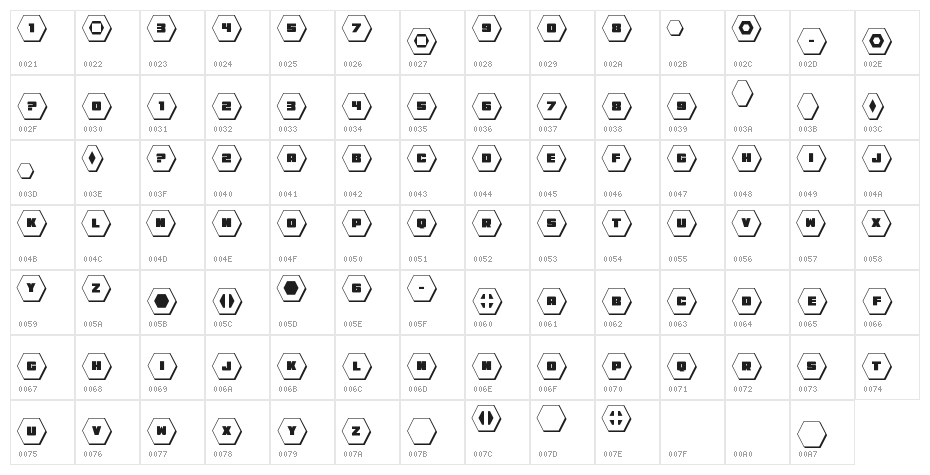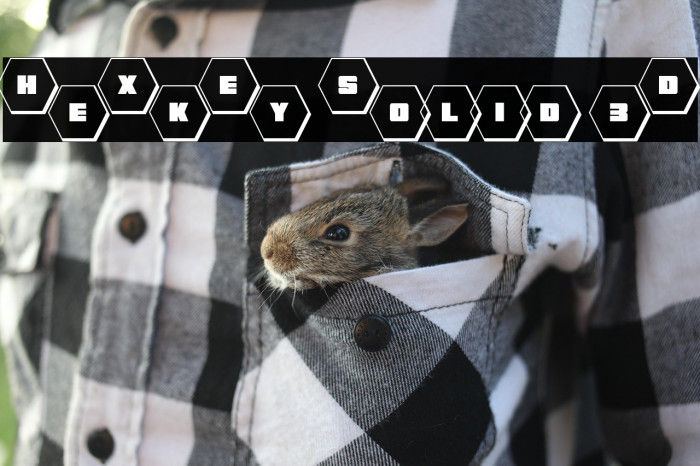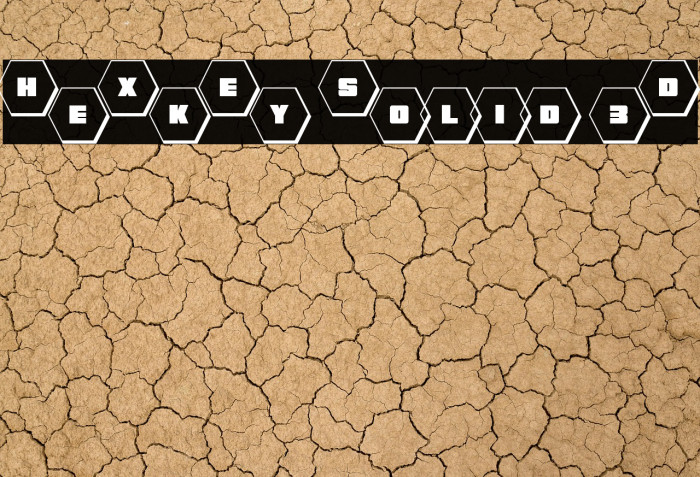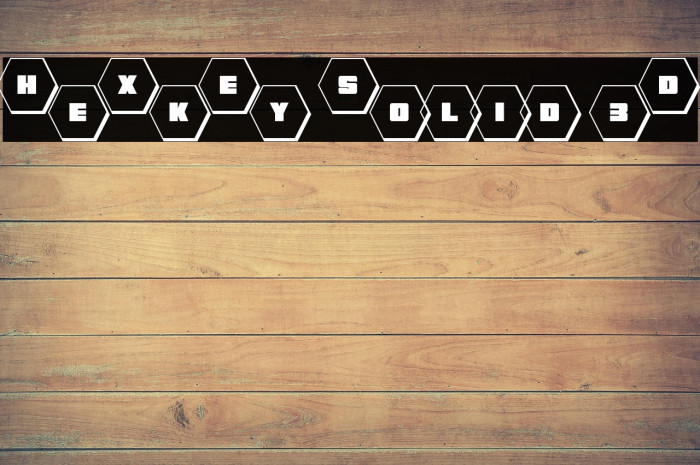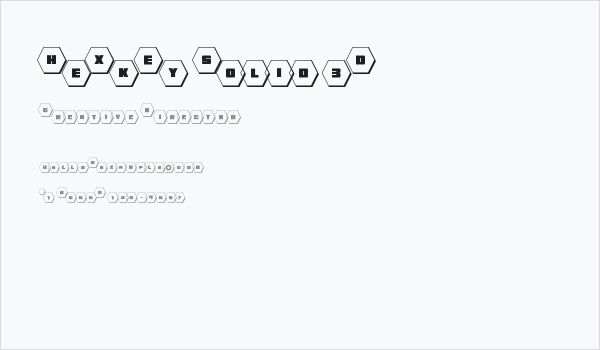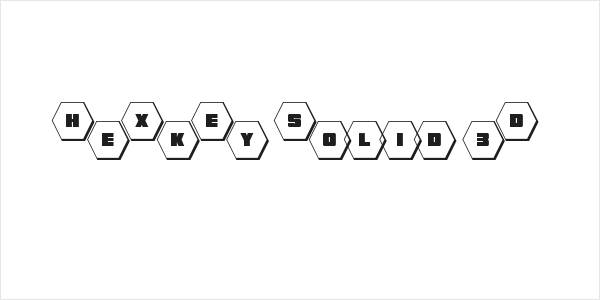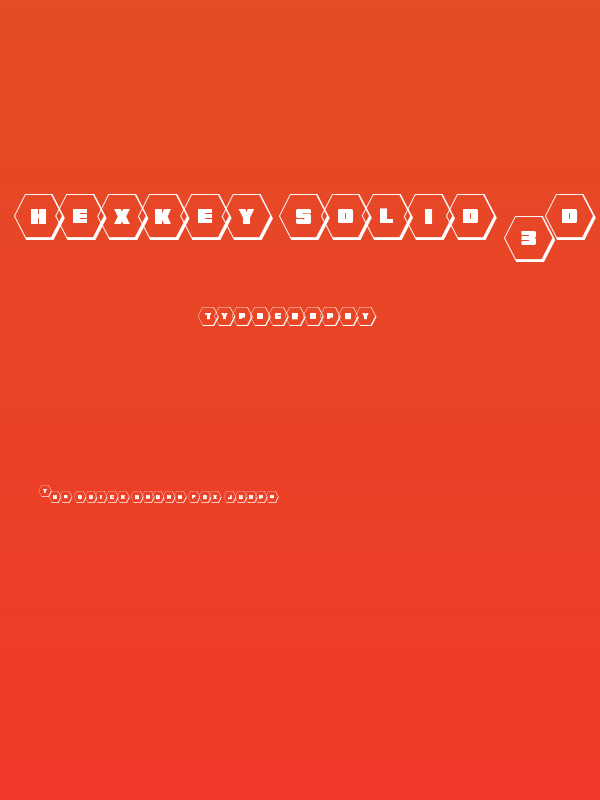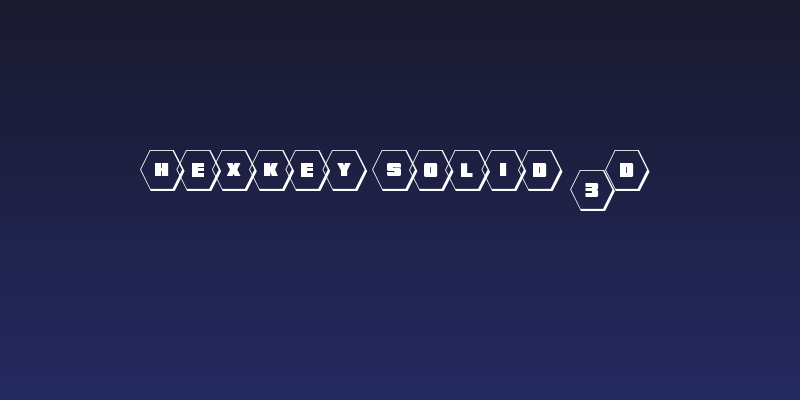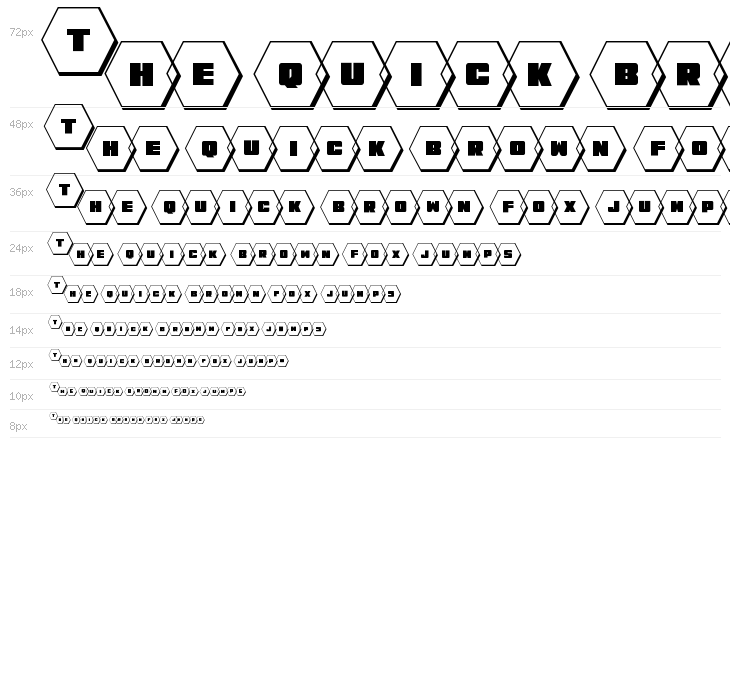
HeXkEy Solid 3D Font
HeXkEy Solid 3D Description
This font features a unique hexagonal design, where each character is enclosed within a hexagon, creating a bold and futuristic appearance. The letters and numbers are solid and well-defined, with a three-dimensional effect that adds depth and interest. The geometric style is consistent across uppercase and lowercase letters, as well as numbers and special characters. This font's distinct shape and structure make it stand out, offering a modern and innovative look that captures attention.
| Proposed Projects | Ideal for technology-themed projects, sci-fi posters, video game titles, and modern branding. |